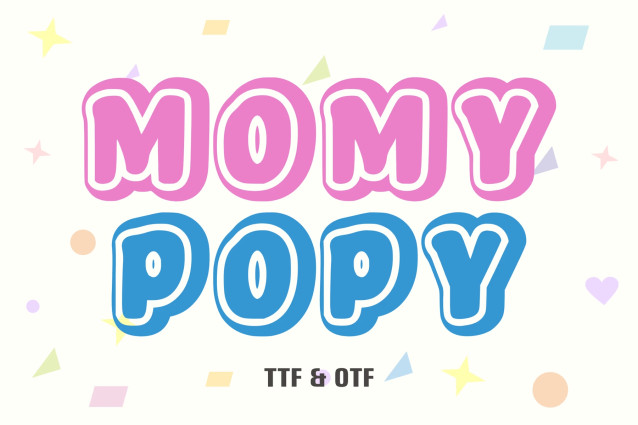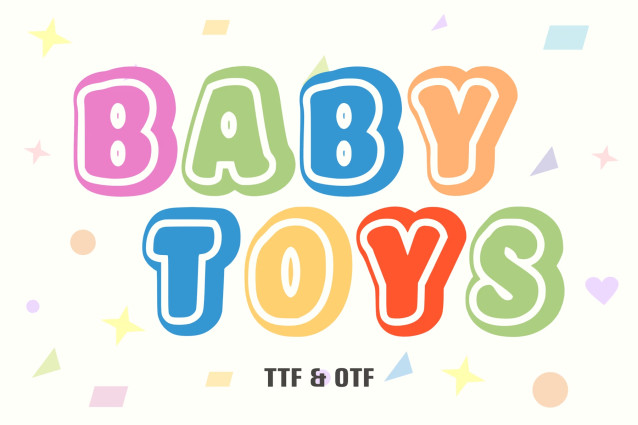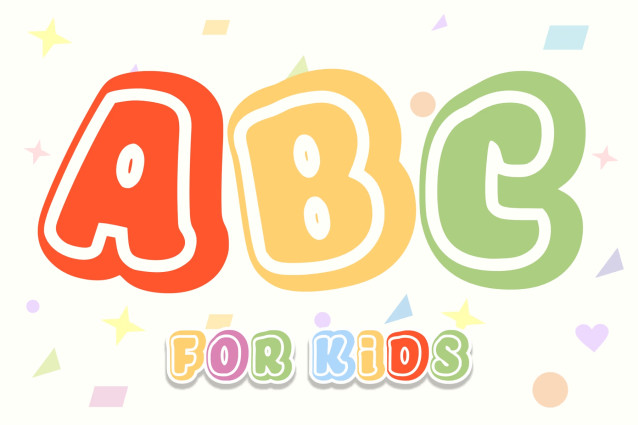
ABC is a children’s font that brings fun and excitement to child-friendly designs. With its cheerful style and appearance, this font offers flexibility for a variety of creative endeavors. Let this font add a pop of color and imagination to your designs, each character is suitable for everything from posters, stickers, comics, and more.